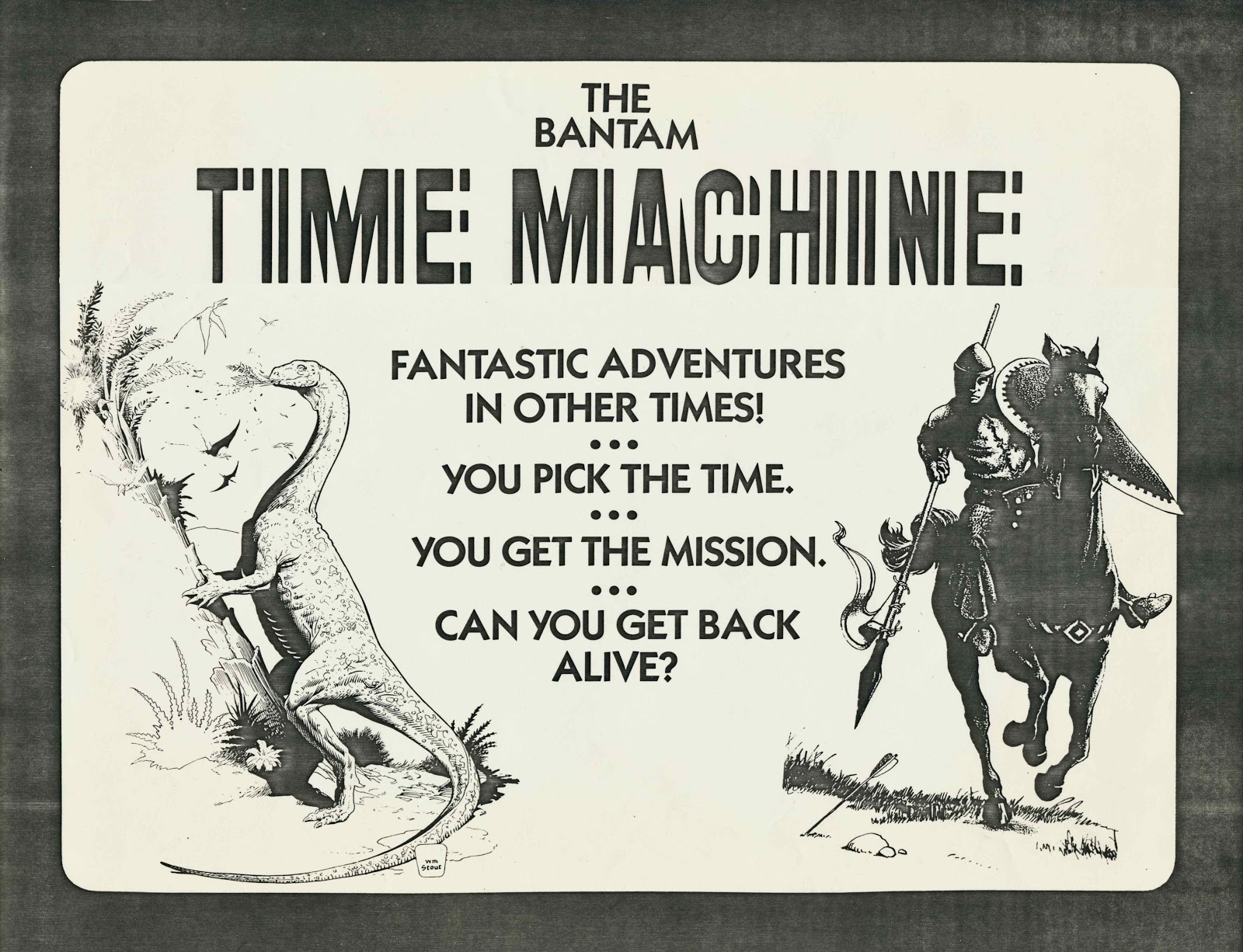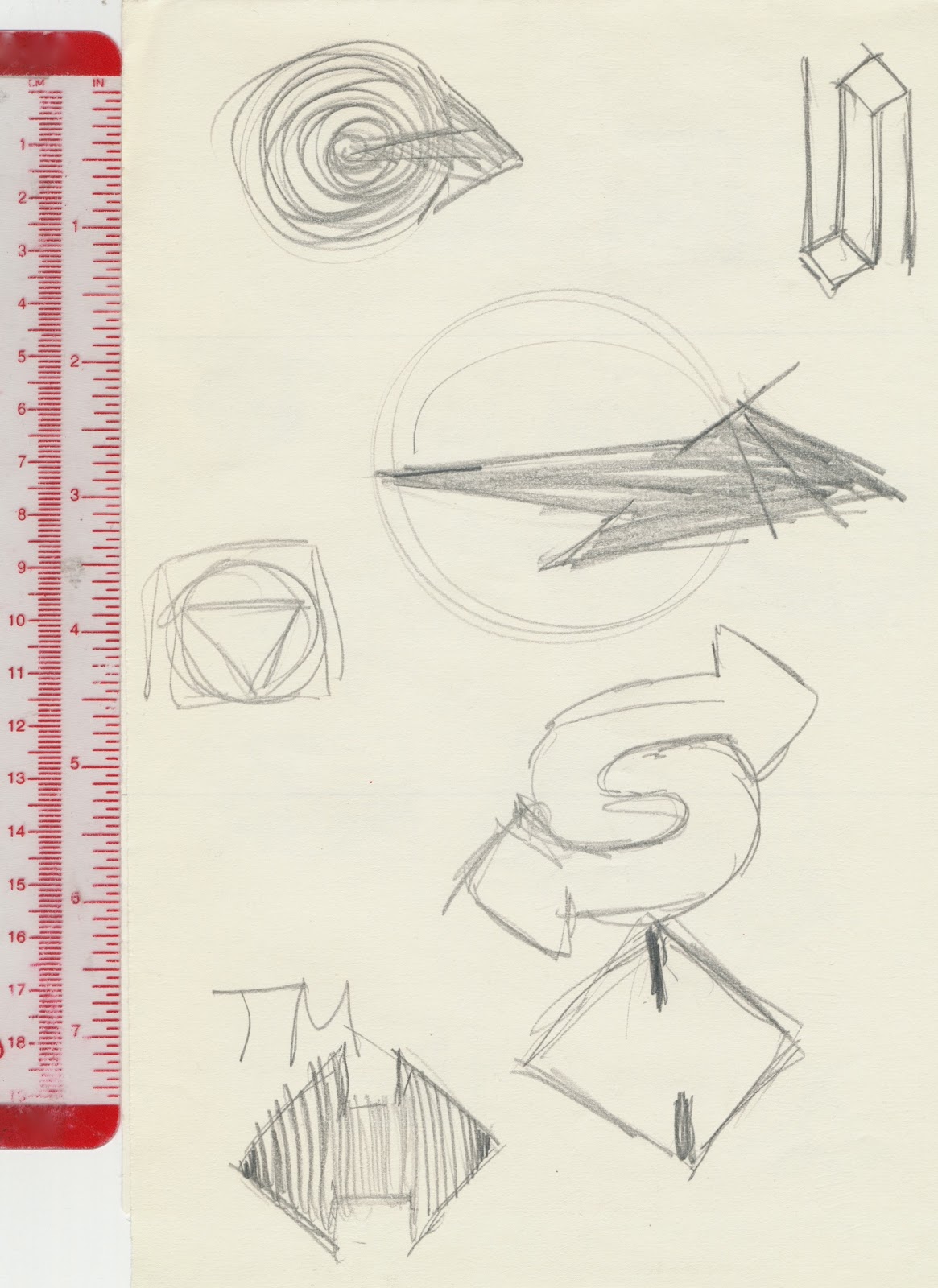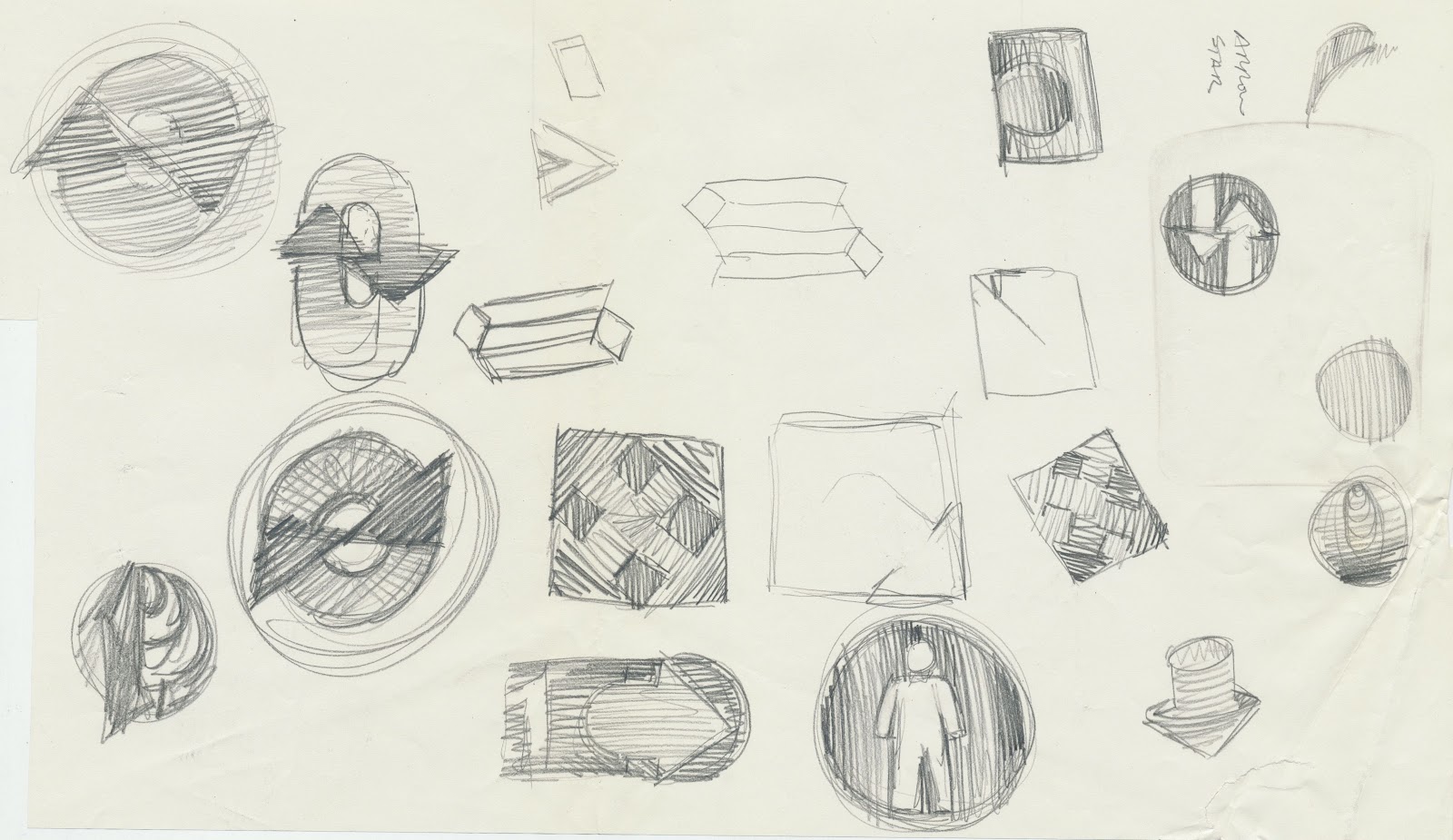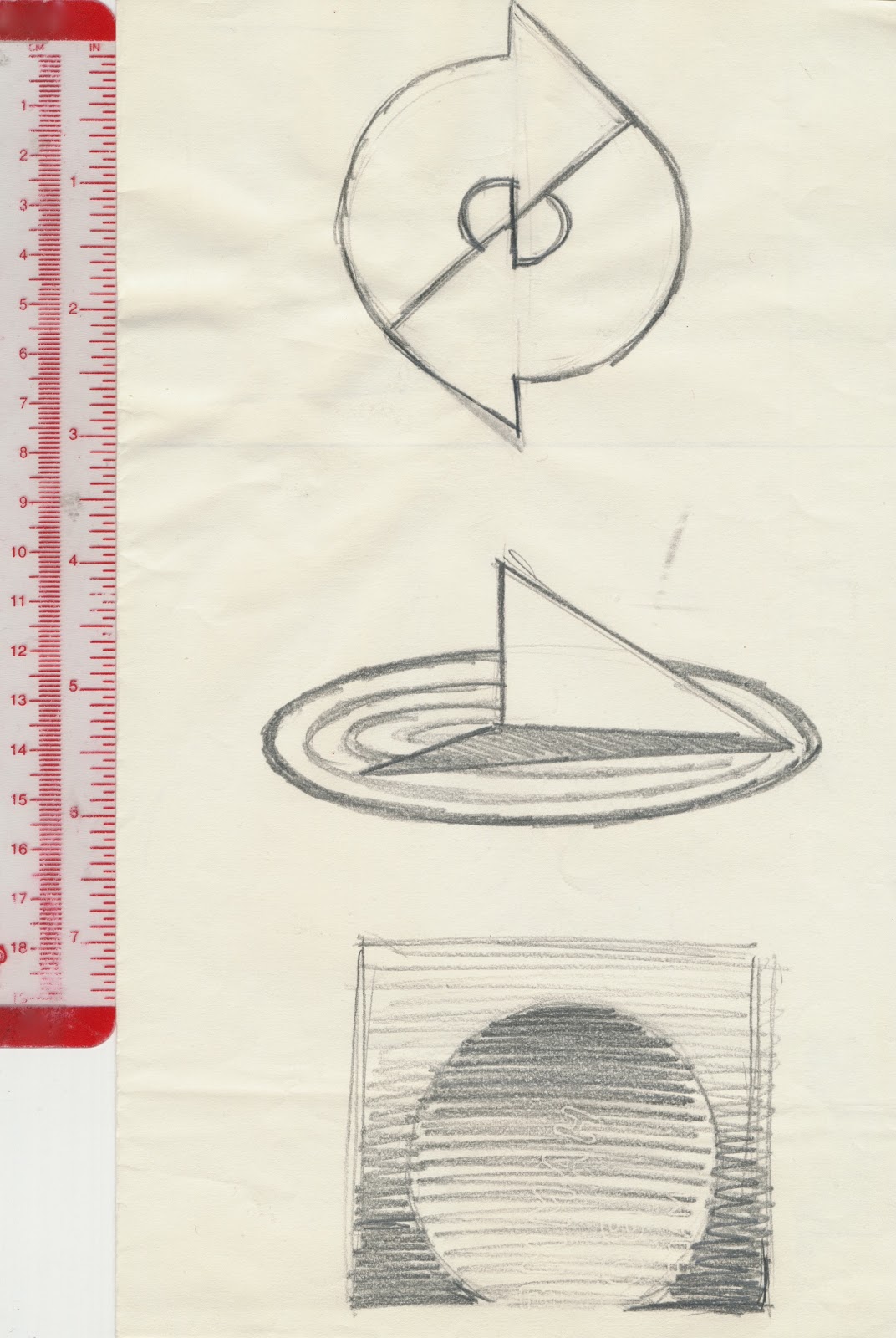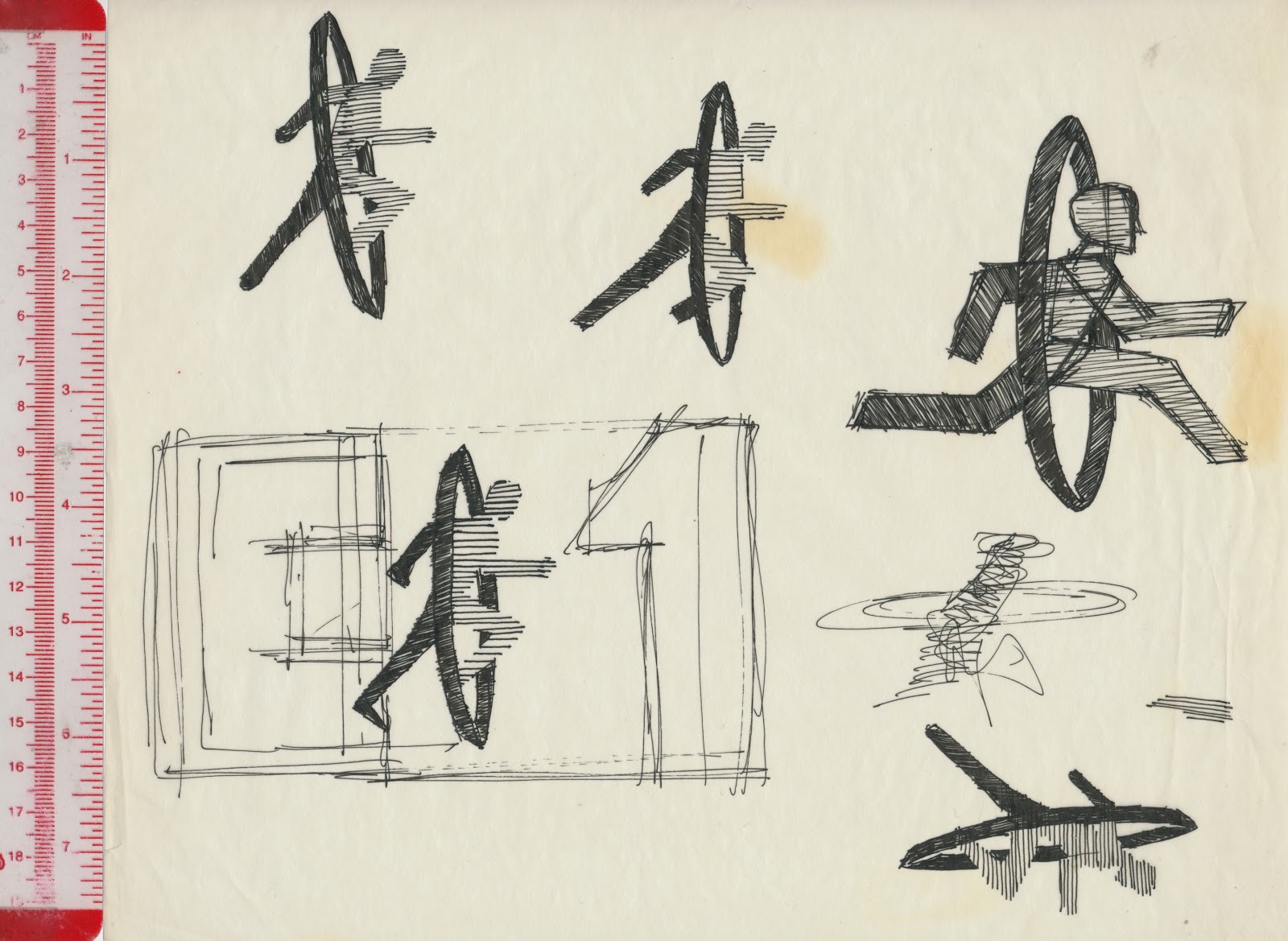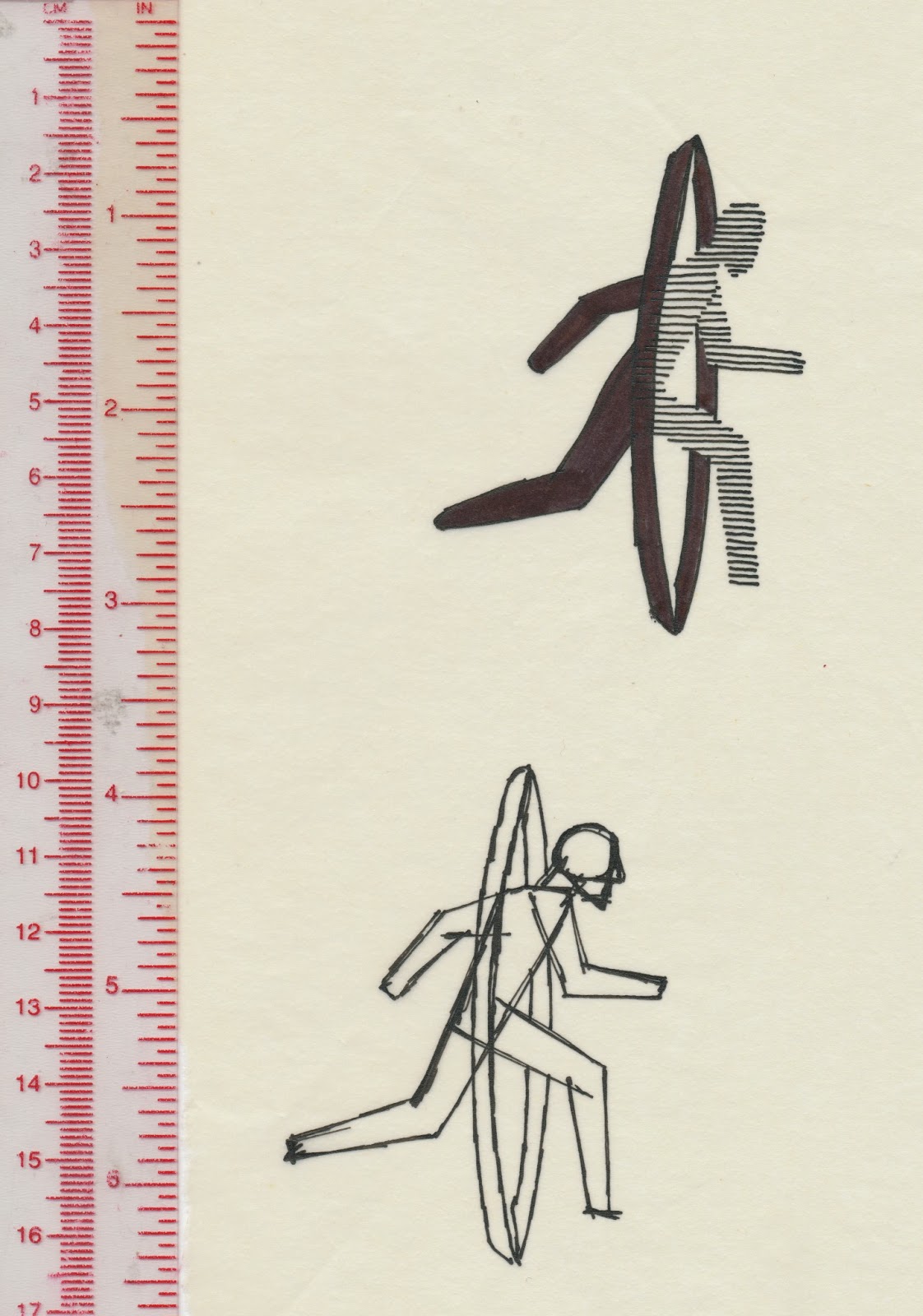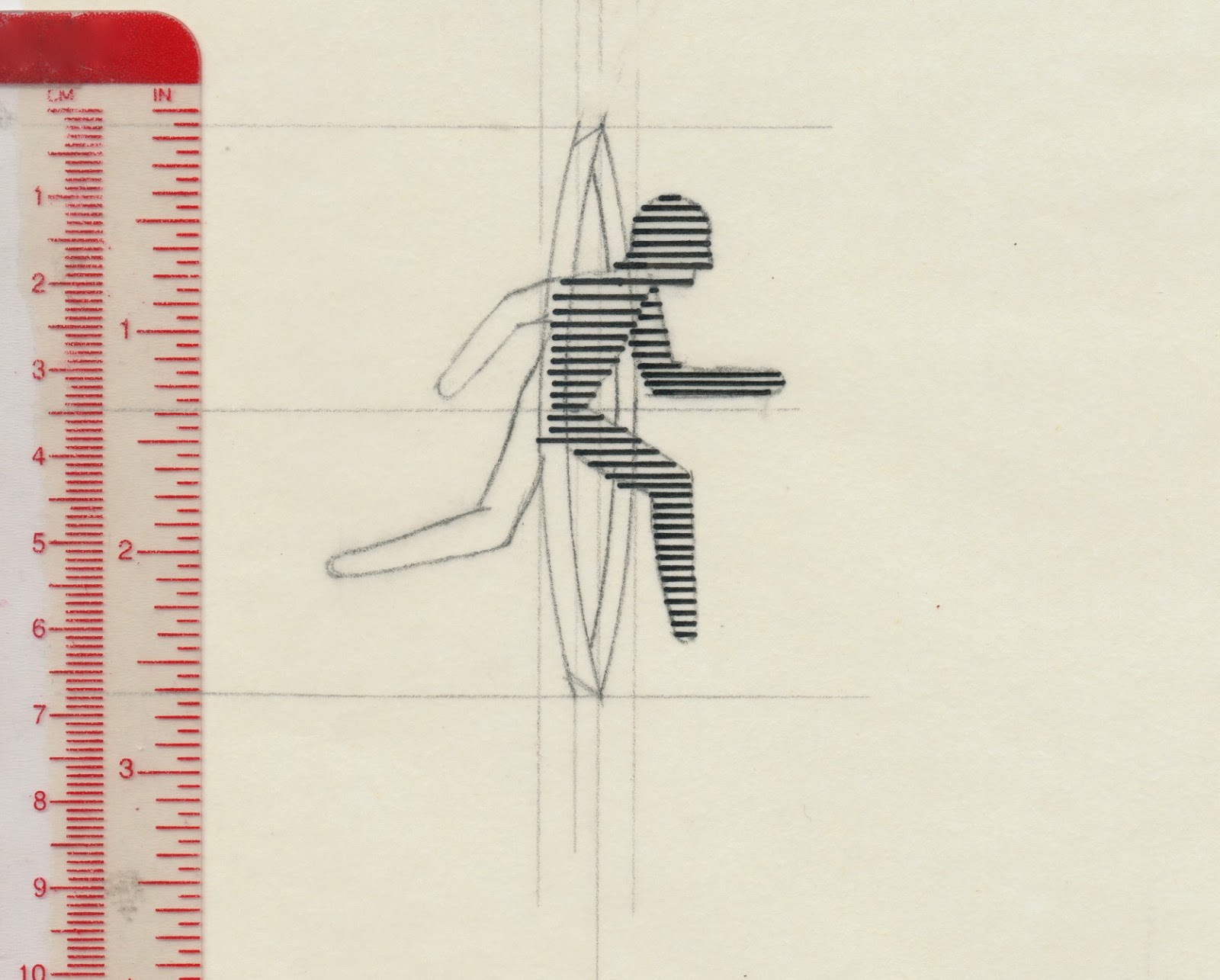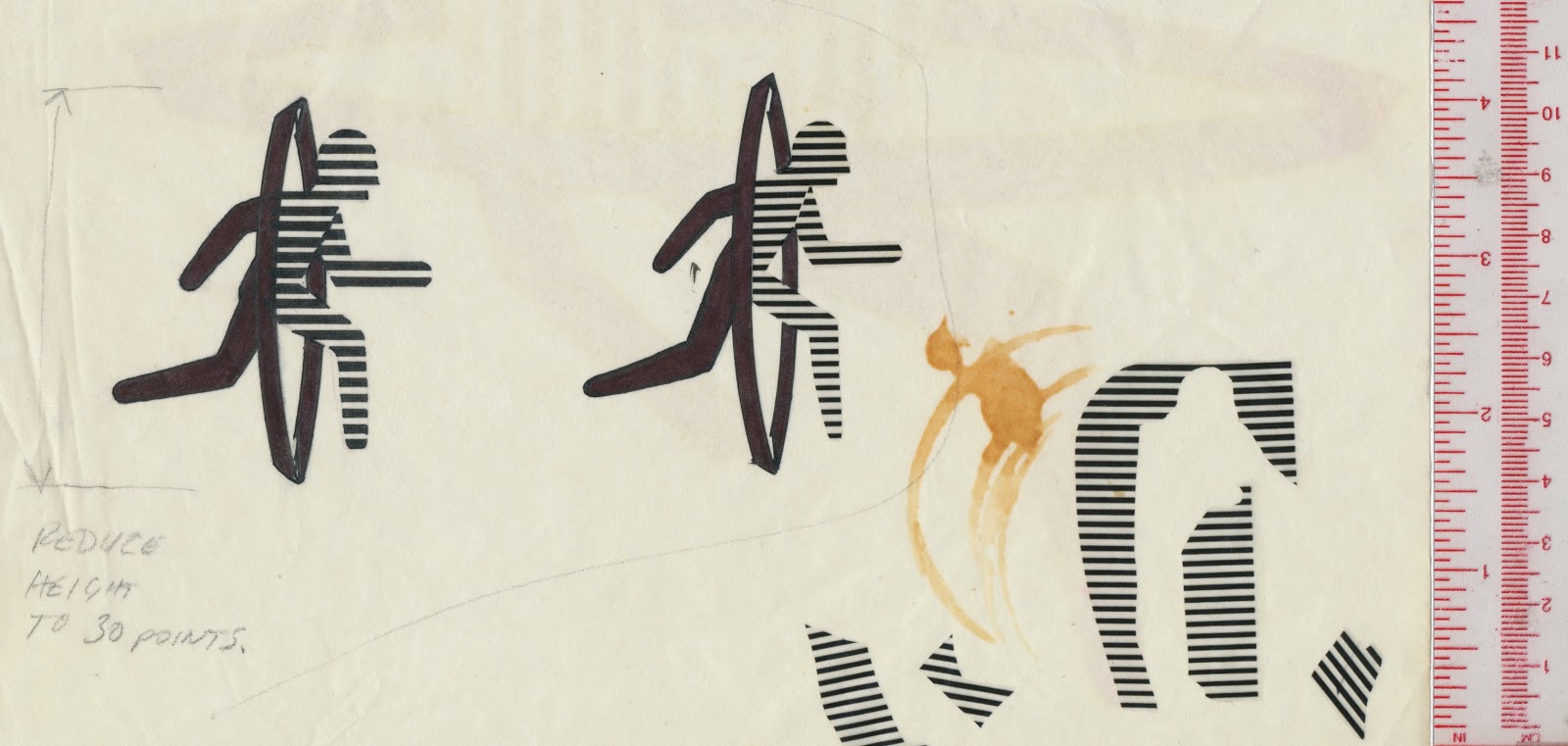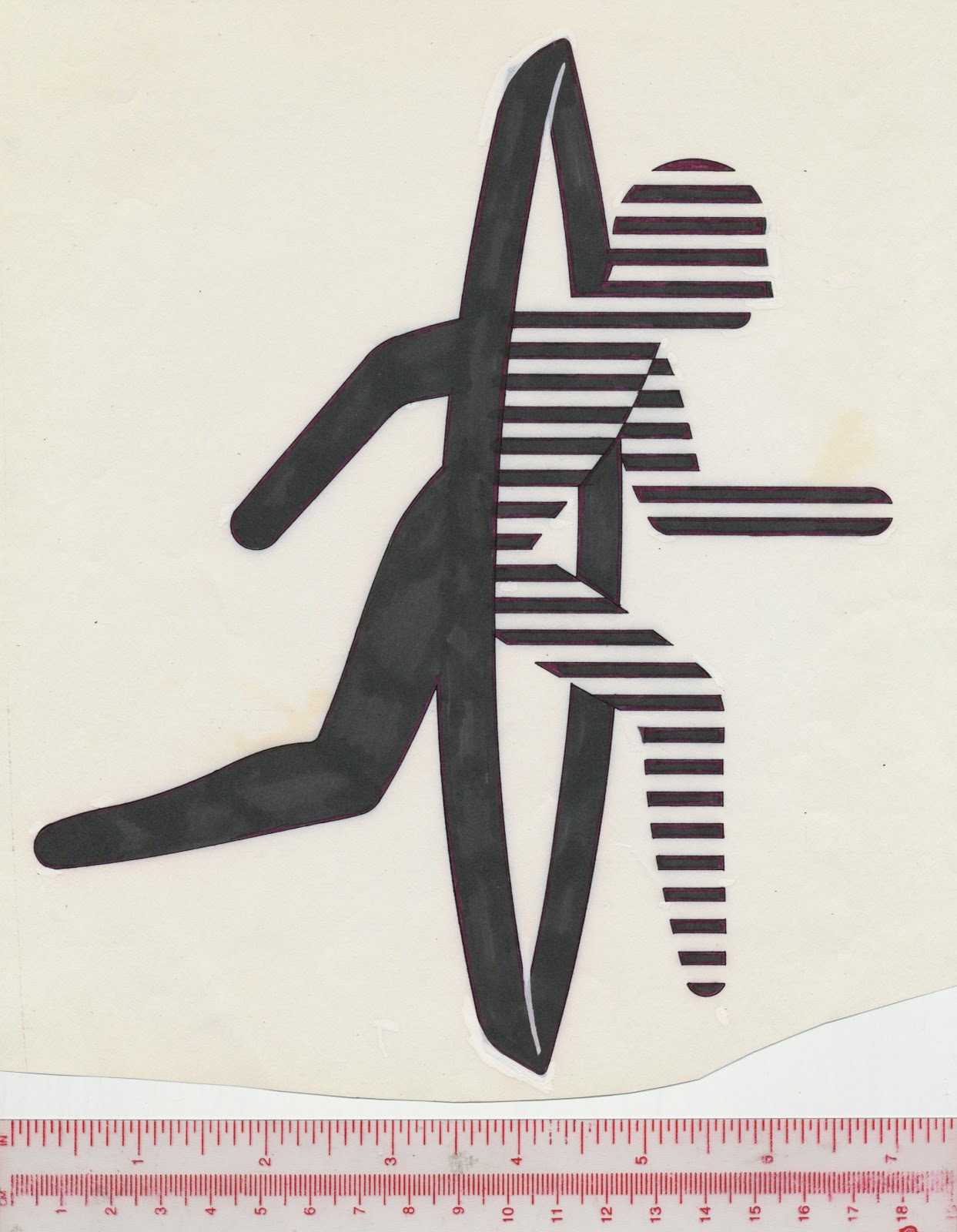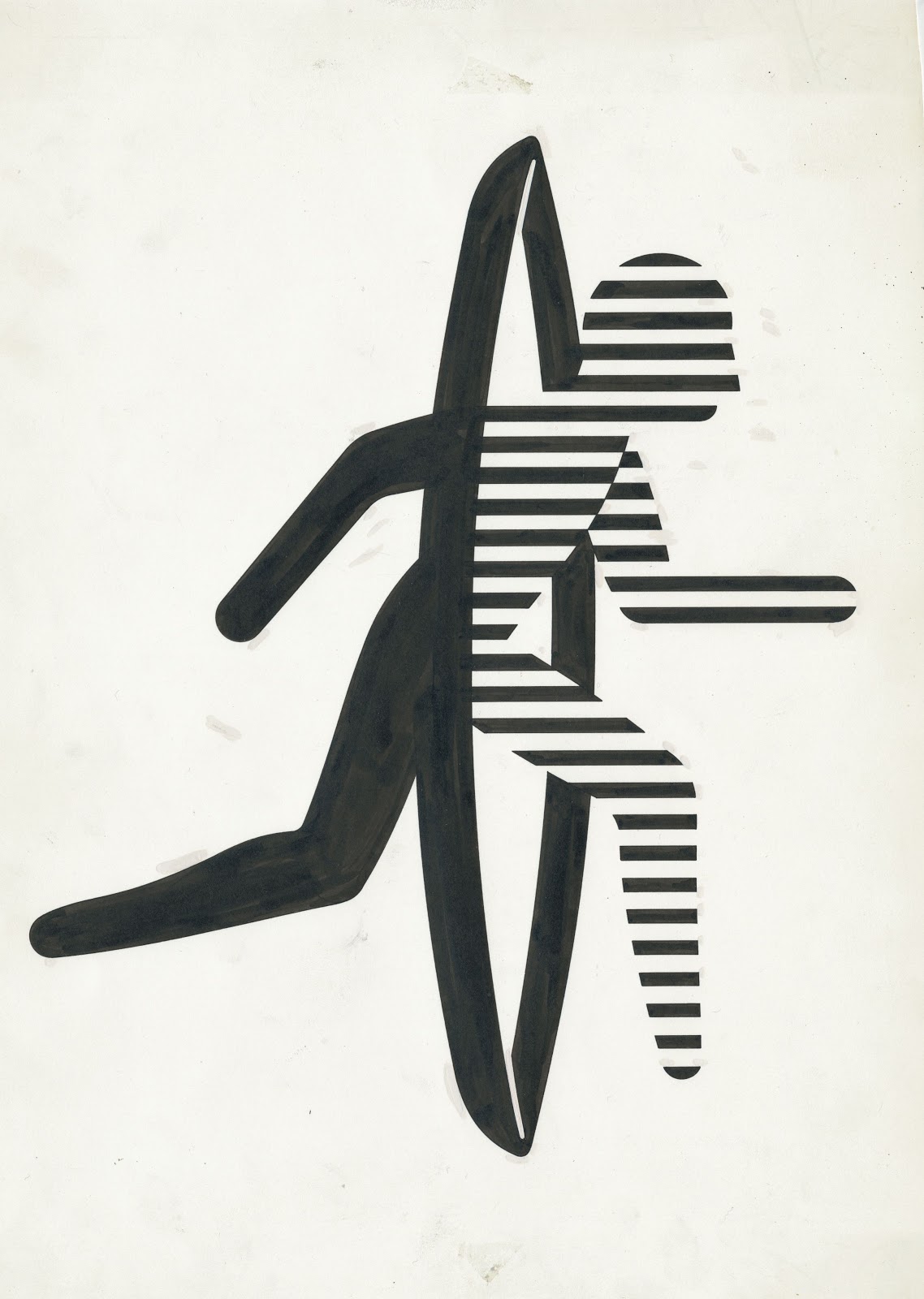
Time Machine was a 25-book series produced by the late Byron Preiss. With the success of the Choose Your Own Adventure booka, published by Bantam Books, Byron developed a time travel adventure series.
For his presentation to Bantam Books he explained to me that he wanted a retail display box. Below is a photocopy of the box cover; inside was the box stand with two shelves and room for 24 books. The title font is Electus, from Photo-Lettering. In school I recalled seeing this font which was used by the design firm Brownjohn, Chermayeff & Geismar for their client, Electric Circus, a New York City nightclub.
When Bantam Books bought the series, work began right away on the design. Below are the sketches of a symbol for the series. Arrows, sun dial, and figures going through some form of transformation.
Byron and I decided on the figure going through a portal. Having grown up reading Dr. Strange, the image of him entering an inter-dimensional portal was a major influence on the design of the Time Machine symbol. Below is the splash page from Strange Tales #138 with art by Steve Ditko.
The figure between the E and 1 was an early attempt at incorporating the symbol in the title.
Trying to determine how many lines to use to define the figure.
The next three images show the last stage of creating the symbol art: outline version was photocopied and filled in before completing the finished art.
Sketch of the title logo followed by a tight pencil rendering.
The finished lettering with the symbol between the words. Below the title are the numbers which were created as needed. The 6 was turned upside down for the 9.
The original design of the 4 which was modified in the finished art, shown above.
When the series numbering reached double digits, I made a film positive of the 1 and 2. Then the film was placed over to a photocopied number. A photostat was made of the combined numbers.
Press release letterhead design by Bantam Books
Decal design by Bantam Books